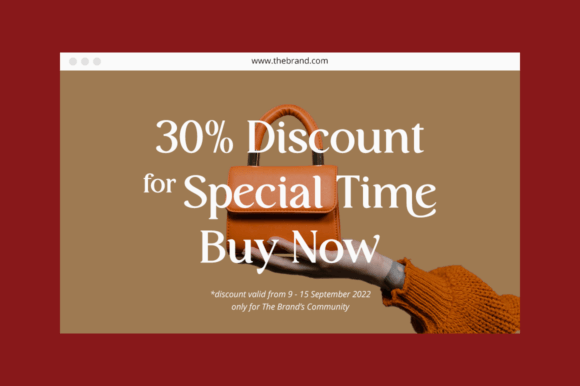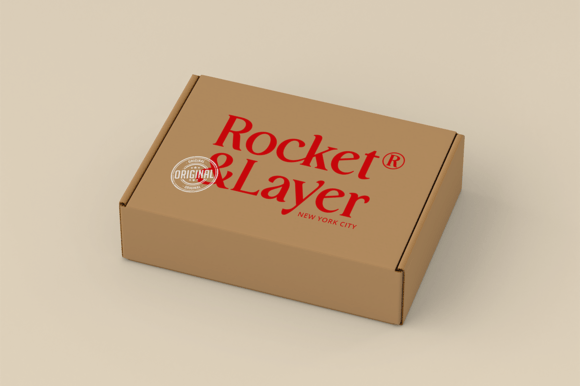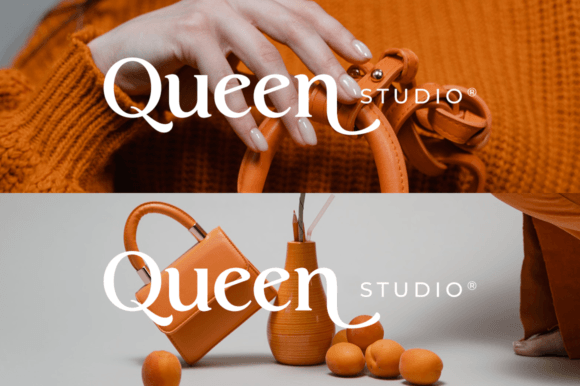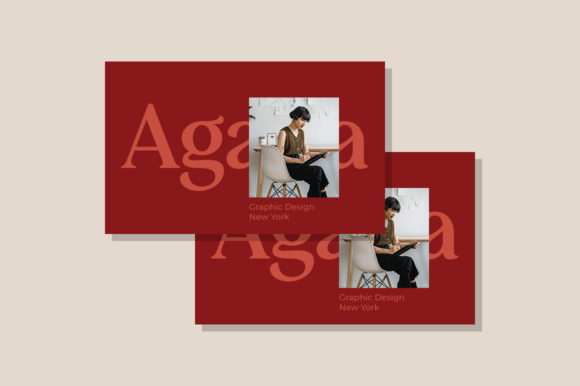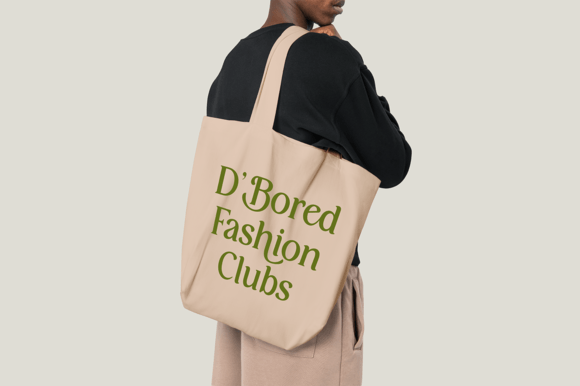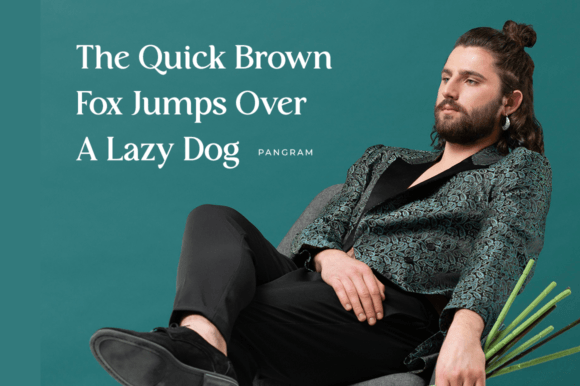
Dramatical the Display Font: Elevate Your Designs with Elegance
Are you tired of using the same old fonts in your designs? Look no further than Dramatical the Display Font, an elegant, thin-lettered, and distinct serif font that’s sure to take your creations to the next level. With its neat and clean style, this font is suitable for a wide variety of designs, making it the perfect addition to your font library.
The Characteristics of Dramatical the Display Font
Dramatical the Display Font boasts a range of characteristics that make it stand out from the crowd. Its thin letters and delicate lines give it an air of sophistication and elegance, making it perfect for designs that require a touch of refinement. The serif details add a level of classic charm, while the clean lines ensure that the font remains highly legible, even at smaller sizes.
Why Choose Dramatical the Display Font?
So, why should you choose Dramatical the Display Font for your next design project? Here are just a few compelling reasons:
- Versatility: Dramatical the Display Font is incredibly versatile, making it suitable for a wide range of designs, from elegant wedding invitations to sophisticated business branding.
- Elegance: The font’s thin letters and serif details give it an undeniable air of elegance, making it perfect for designs that require a touch of sophistication.
- Legibility: Despite its delicate lines, Dramatical the Display Font remains highly legible, even at smaller sizes, making it perfect for body text as well as headings.
- Uniqueness: With its distinctive serif details and elegant lines, Dramatical the Display Font is sure to help your designs stand out from the crowd.
How to Use Dramatical the Display Font in Your Designs
So, how can you use Dramatical the Display Font in your designs? Here are a few ideas to get you started:
- Wedding Invitations: Dramatical the Display Font is perfect for elegant wedding invitations, adding a touch of sophistication and romance to your designs.
- Business Branding: The font’s elegant lines and serif details make it perfect for business branding, adding a level of professionalism and sophistication to your logo and marketing materials.
- Packaging Design: Dramatical the Display Font is also perfect for packaging design, adding a touch of elegance and refinement to your product labels and packaging.
- Digital Designs: The font’s clean lines and legibility make it perfect for digital designs, including website headers, social media graphics, and more.
Tips for Getting the Most Out of Dramatical the Display Font
To get the most out of Dramatical the Display Font, here are a few tips to keep in mind:
- Use it sparingly: While Dramatical the Display Font is elegant and sophisticated, it can be overwhelming if used too much. Use it sparingly to add a touch of refinement to your designs.
- Experiment with colors: The font’s clean lines and elegant details make it perfect for use with a range of colors. Experiment with different color combinations to find the one that works best for your design.
- Pair it with other fonts: Dramatical the Display Font pairs well with a range of other fonts. Experiment with different pairings to find the one that works best for your design.
In conclusion, Dramatical the Display Font is an elegant, thin-lettered, and distinct serif font that’s sure to become your go-to font for a wide range of designs. With its neat and clean style, versatility, and elegance, this font is perfect for designers and crafters looking to add a touch of sophistication to their creations. Whether you’re designing wedding invitations, business branding, or packaging, Dramatical the Display Font is sure to help you create stunning designs that stand out from the crowd.